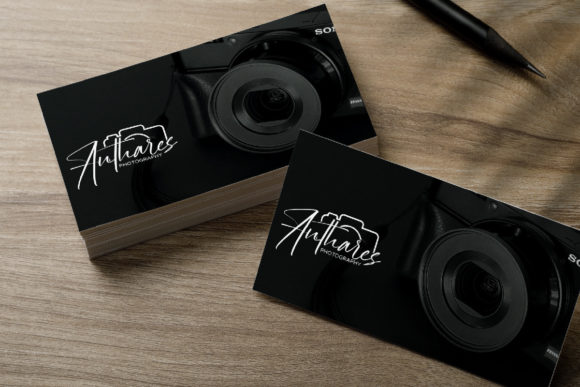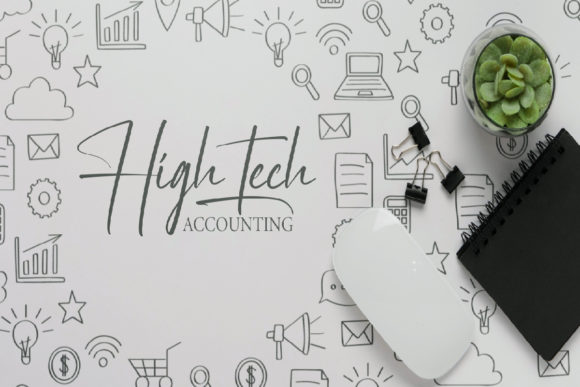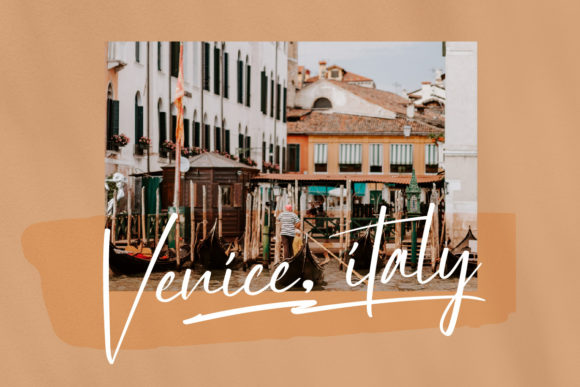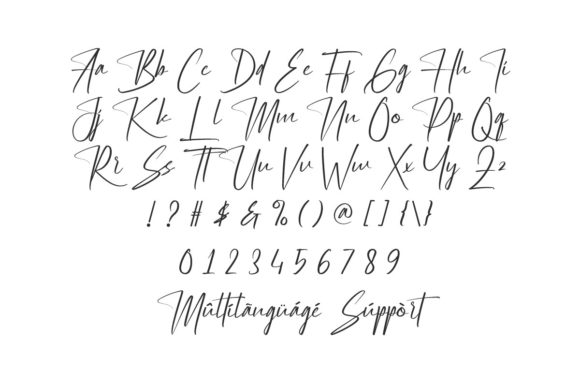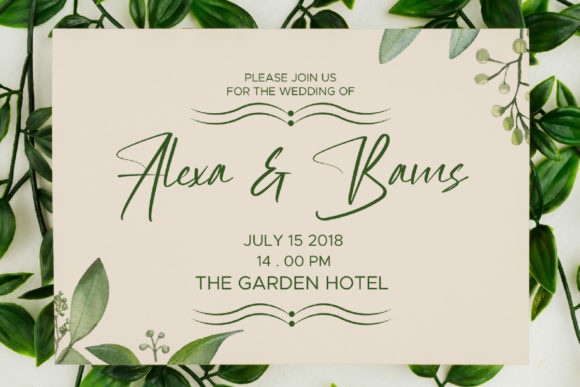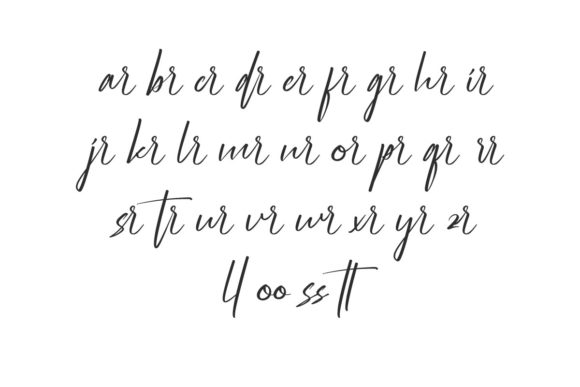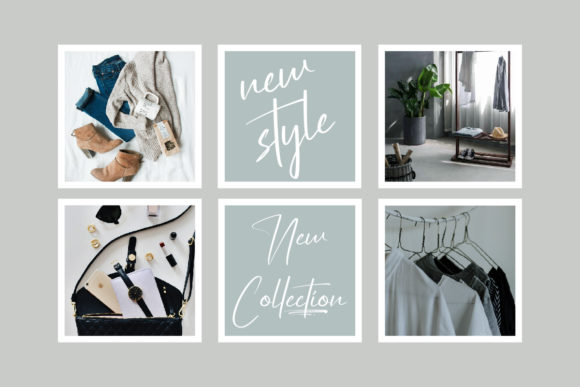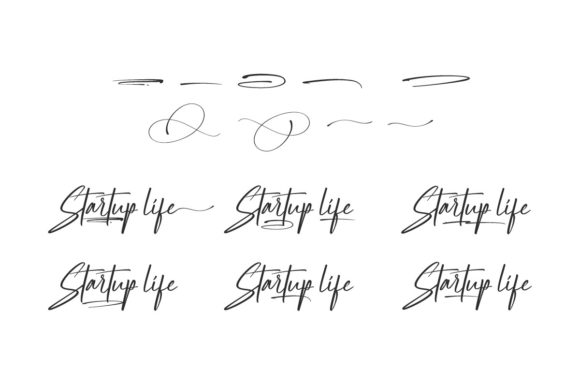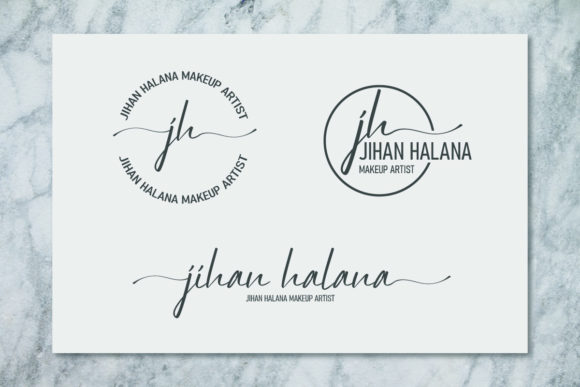
Startup Life Font
About Startup Life Font
Introducing “Startup Life,” a stunning and luxurious script font designed to elevate your designs with its elegance and sophistication. Perfect for product packaging, branding projects, magazine covers, social media posts, weddings, and more, Startup Life adds a touch of luxury and refinement to any design endeavor.
With its gorgeous appearance and meticulously crafted characters, Startup Life exudes class and style. Whether you’re creating packaging for high-end products, designing a sophisticated brand identity, or crafting elegant wedding invitations, this font brings a sense of prestige and exclusivity to every project.
With PUA encoding, accessing the wide array of glyphs and swashes is effortless, allowing you to customize your designs with ease. Whether you’re adding decorative flourishes, stylish swashes, or other embellishments, Startup Life offers endless possibilities for creative expression.
Experience the beauty and luxury of Startup Life and watch as it transforms your designs into breathtaking masterpieces. Whether you’re a seasoned designer or a creative enthusiast, this font invites you to explore new avenues of creativity and express yourself with confidence and style.
Unlock the full potential of your designs with Startup Life and let its luxurious script font elevate your projects to new heights of sophistication. With its timeless elegance and versatile nature, this font is sure to become a cherished addition to your design toolkit, adding a touch of prestige to every creation.